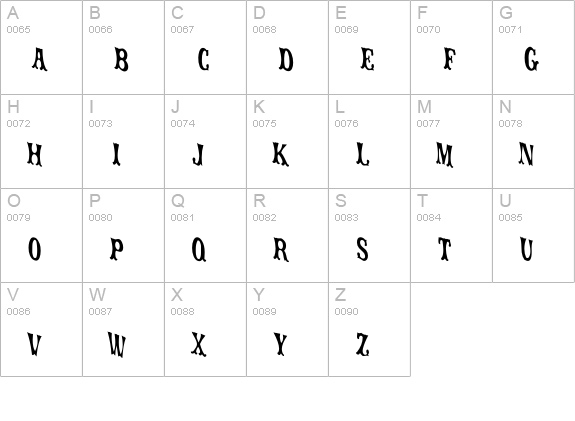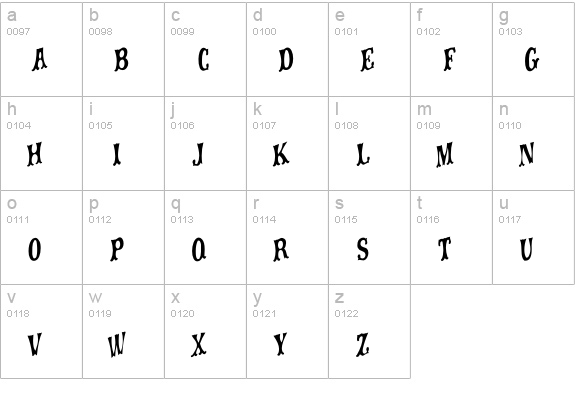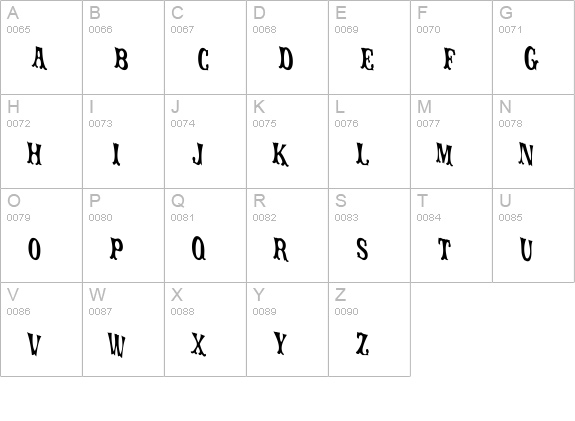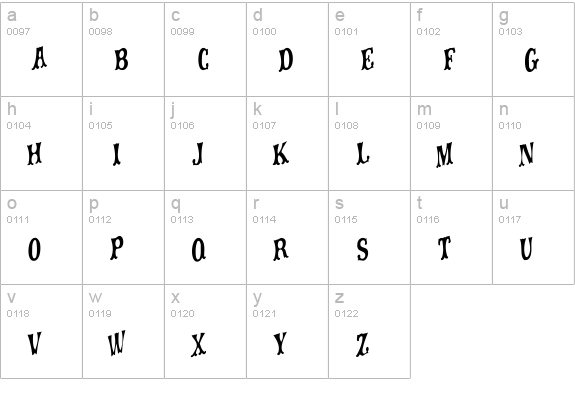
Movieolatitletype Font Details
Movieolatitletype font is a stunning and versatile typeface that exudes elegance and sophistication. With its sleek lines and modern design, this font is perfect for adding a touch of style to any project. Whether you're creating a movie poster, designing a logo, or crafting a website, Movieolatitletype font is sure to make a bold statement. The best part? Movieolatitletype font is available for free download at FontsMarket.com. This means you can easily access this amazing font and use it in your projects without any cost. Don't miss out on the opportunity to enhance your designs with the captivating beauty of Movieolatitletype font. Download it today and let your creativity shine!